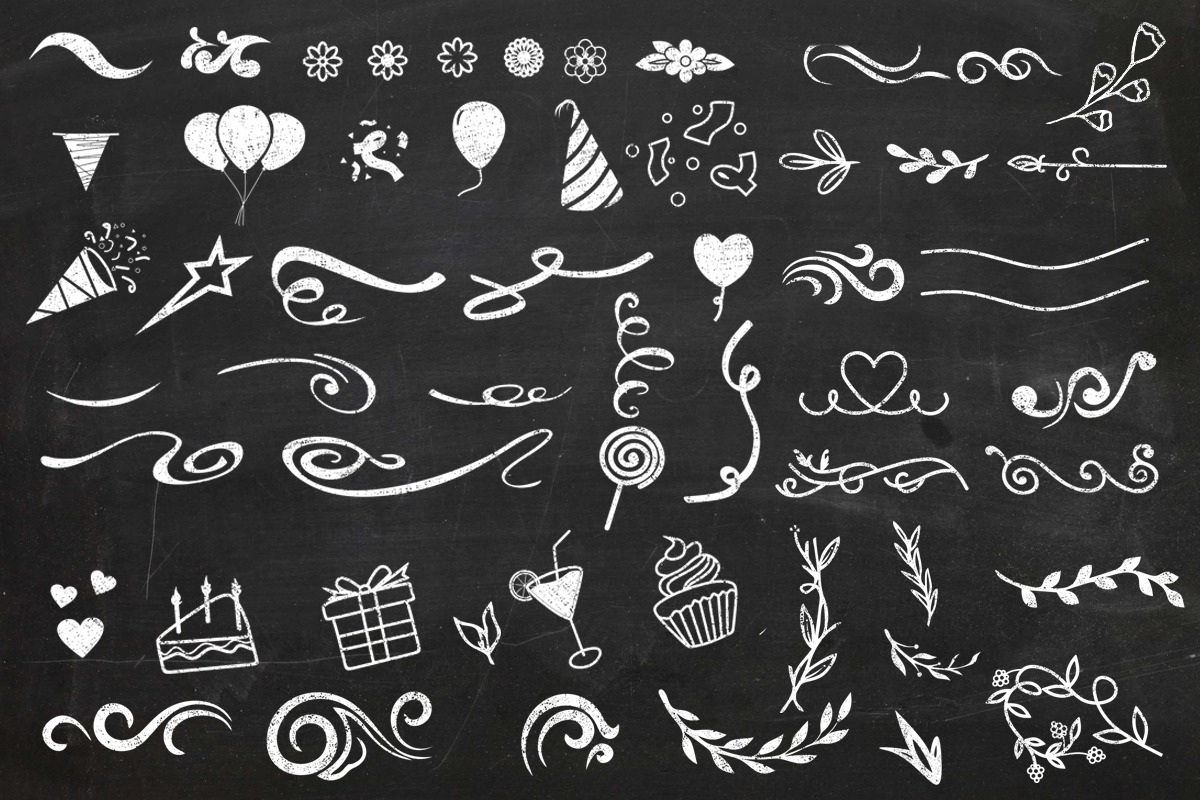
Extra Ornament
Extra Ornament is a useful and delicate dingbats or symbol font. No matter the topic, this font will be an incredible asset to your fonts’ library, as it has the potential to elevate any creation.